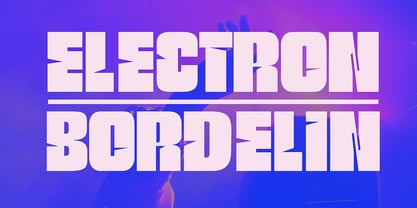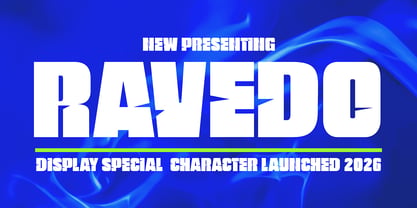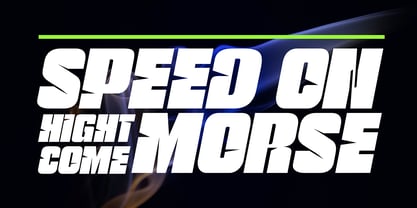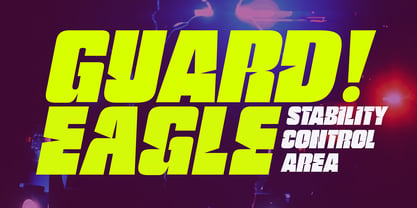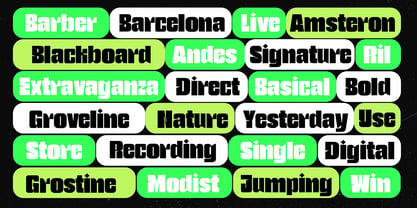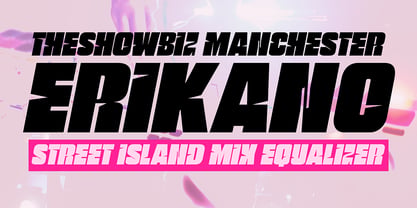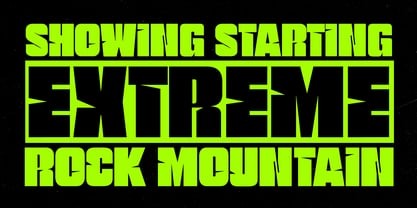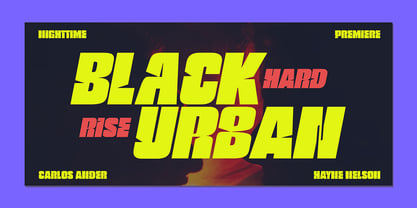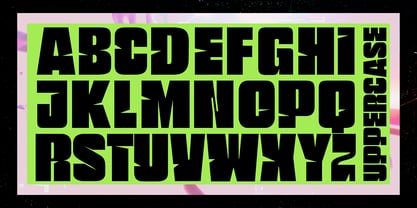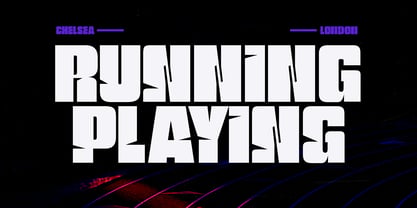
Ravedo Compressed
by Gatype
The Ravedo Compressed Font Family was designed by khaidir and published by Gatype. Ravedo Compressed contains 2 styles and family package options. More about this family
We're back with the Ravedo font, a captivating sporty style perfect for sports and posters. Its contemporary style will appeal to you when creating classy designs while maintaining a stable and classy look. You'll find inspiration with two alternative regular and italic styles: Ligature and Swash Glyph, to combine with your incredible creativity! Enjoy the end of the year!
Designers: khaidir
Foundry: Gatype
Ravedo Compressed